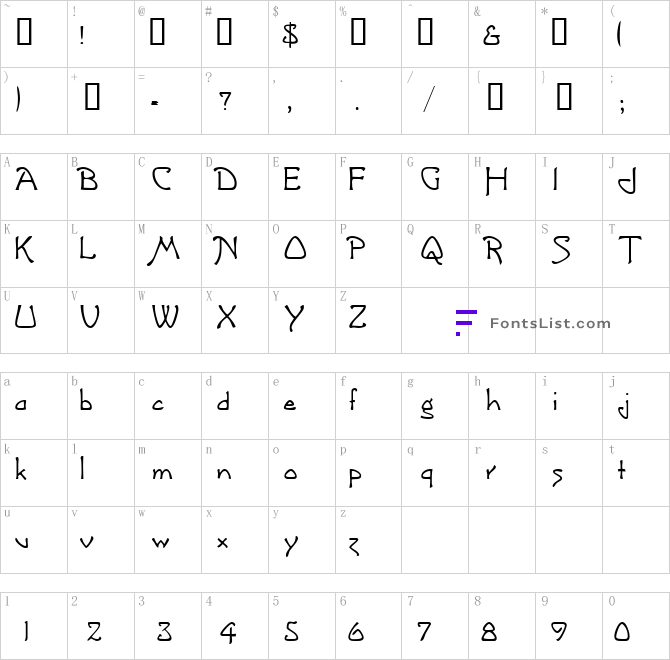
- Font Name:Cannolot Script Ssk
Cannolot-Script-Ssk.ttf is a very beautiful artistic font, Cannolot-Script-Ssk.ttf is widely used in the design and printing of various books and pictures,Cannolot-Script-Ssk.ttf has a strong visual impact,Cannolot-Script-Ssk.ttf is a commonly used font in newspapers, magazines and books, and is used in posters, e-commerce Poster design, store design, logo design, font design and other fields.Cannolot-Script-Ssk.